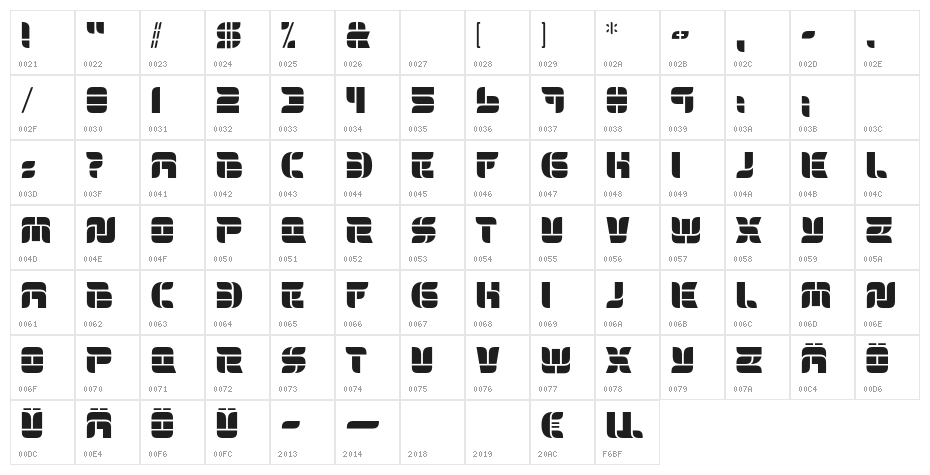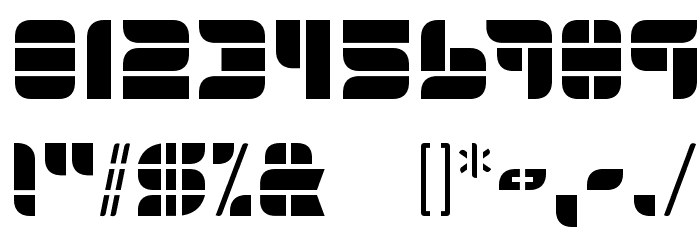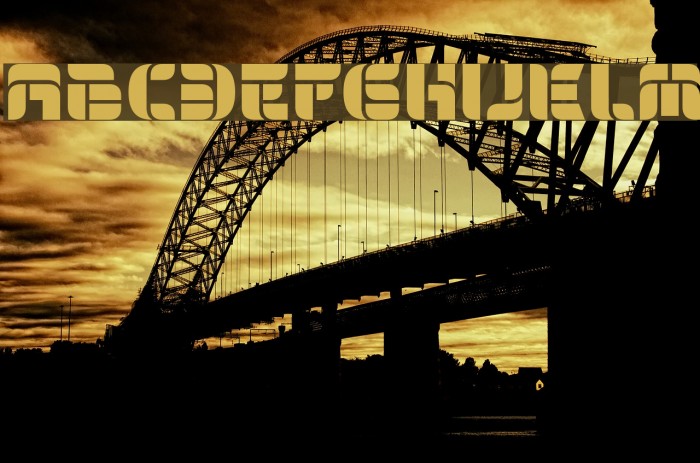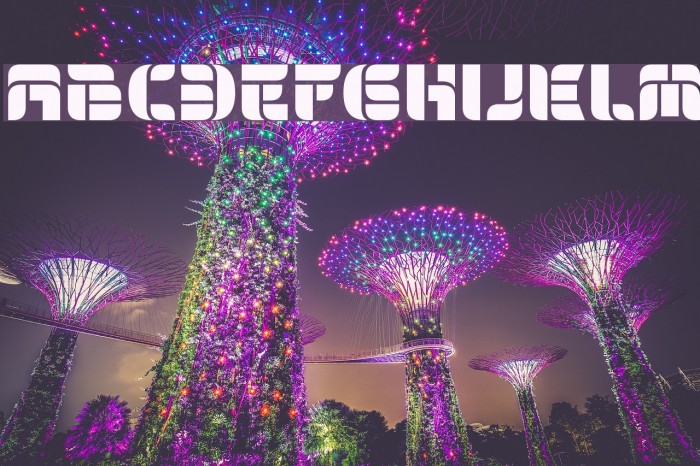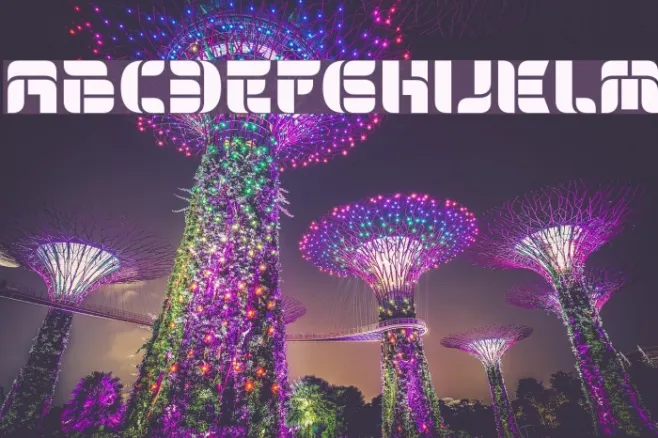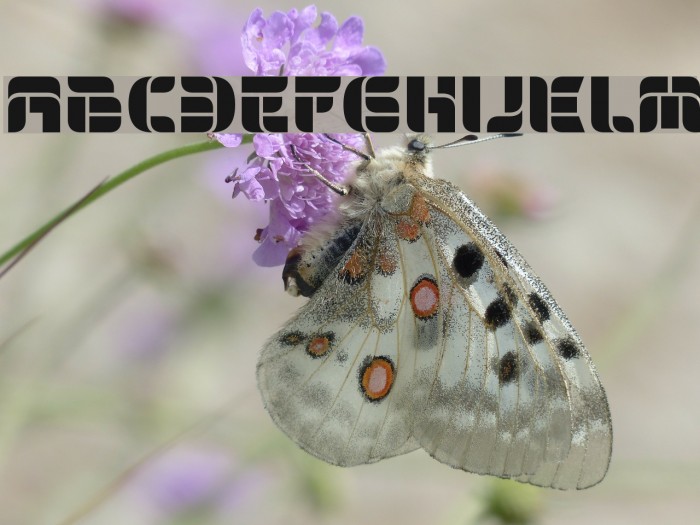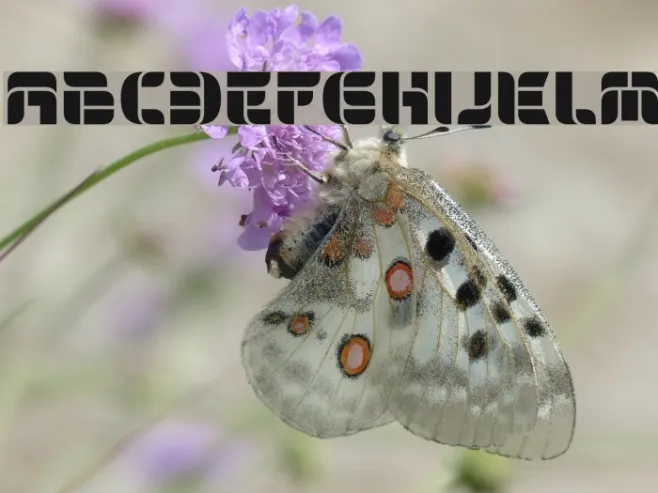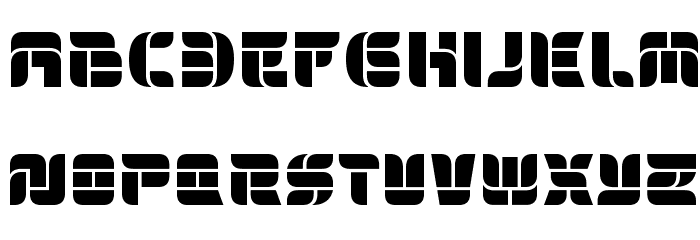
BloneschaBold Font
BloneschaBold Description
This font features a bold, geometric design with a futuristic feel. Each character is constructed from thick, rounded shapes that create a sense of solidity and strength. The letters are composed of segmented blocks, giving them a unique, modular appearance. This design choice results in a highly stylized and modern aesthetic, making it stand out in any application. The font maintains a consistent weight throughout, ensuring uniformity and balance across all characters. Its distinct style is both eye-catching and memorable, suitable for projects that require a bold statement.
| Proposed Projects | Ideal for branding, posters, album covers, and any design work that requires a modern, bold look. |